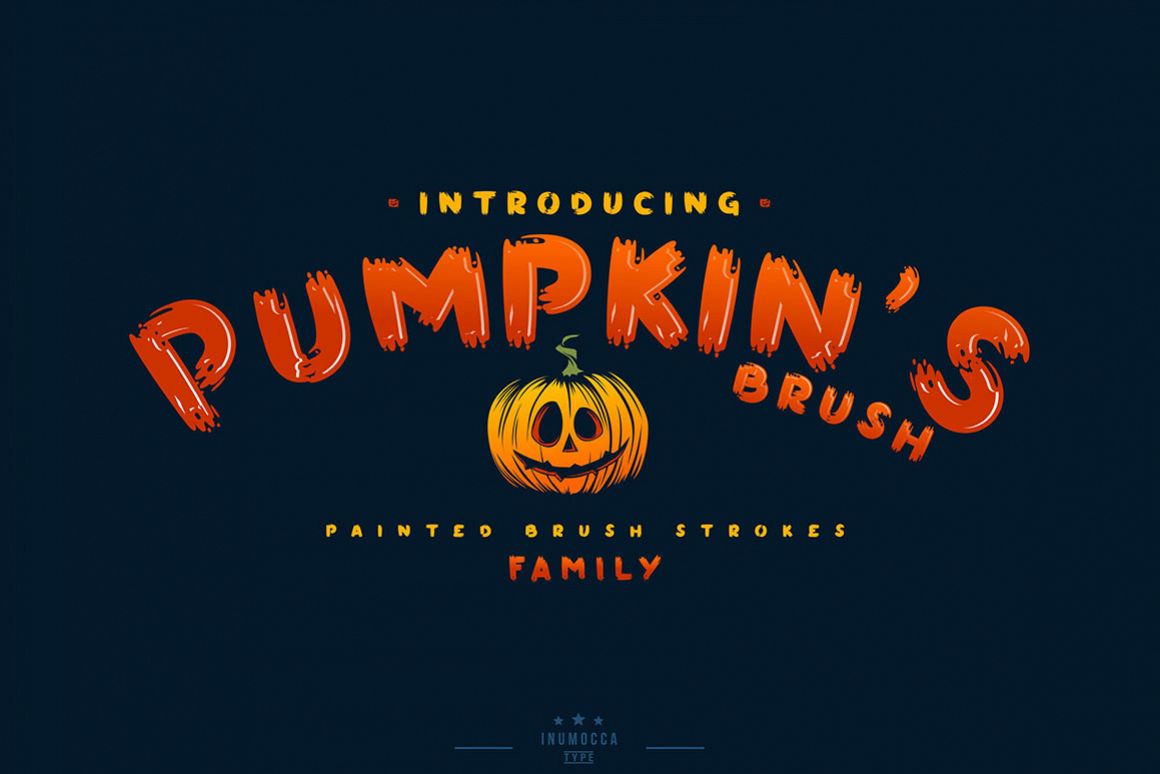
Pumpkin’s Brush
Pumpkins Brush Speed
Pumpkins Brush Slan
Pumpkins Brush
Pumpkin’s Brush Family Font inspiration from Halloween character, scream, wets, dirty and raw. absolutly modern glyph and great to playing typography, or your logos , signature , signage your shop, Logos, catalog , all about of fashions and arts. its very easy to useInclude :
• Pumpkin’s Brush normal
• Pumpkin’s Brush Slant
• Pumpkin’s Brush Speed (Special chatacter on UPPERCASE)